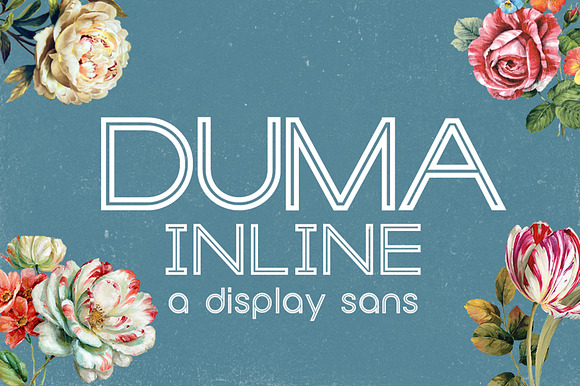
DUMA Inline Font
Here is DUMA Inline! Perfect for big signage and headers or for short paragraphs and web usage. Just have fun with it! Cheers!
Why DUMA Inline Font is worth a look
DUMA Inline Font by ai.photografics fits naturally into Branding, posters, packaging, typography.